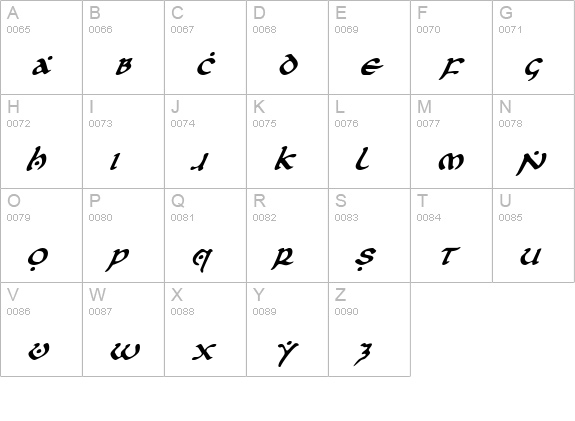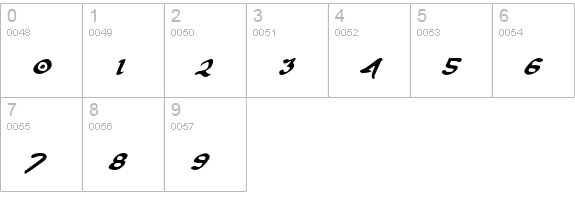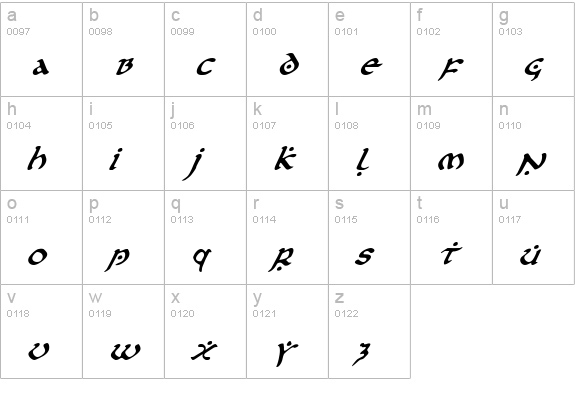
First Order Italic Font Details
First Order Italic is a distinctive, italic variant in the First typeface family \xE2\x80\x94 well suited to design and typography projects.
The First Order Italic font exudes elegance and sophistication with its sleek and stylish design. Each letter is meticulously crafted with a touch of modernity and flair, making it perfect for adding a touch of class to any project. The italicized style adds a sense of movement and dynamism to your text, capturing attention and making a statement. Whether you're designing a logo, creating a poster, or crafting a presentation, First Order Italic font will elevate your work to the next level. And the best part? It's completely free to download at FontsMarket.com. Don't miss out on this opportunity to enhance your projects with this stunning font - get your hands on First Order Italic today!